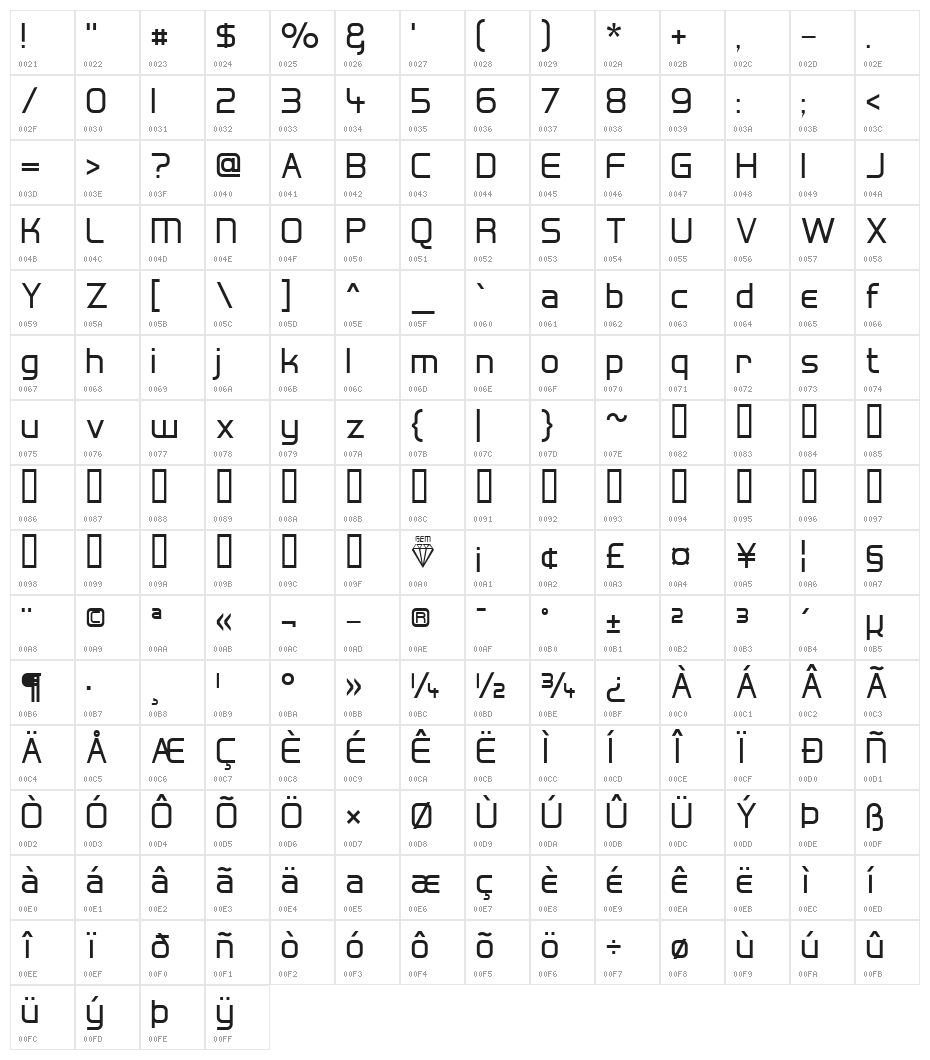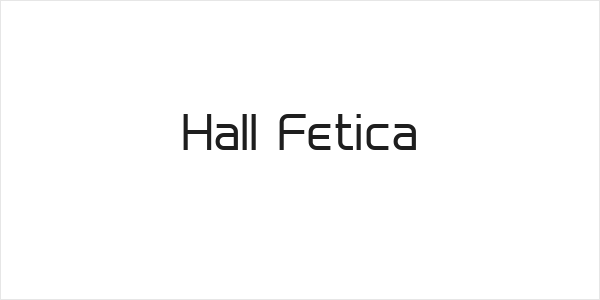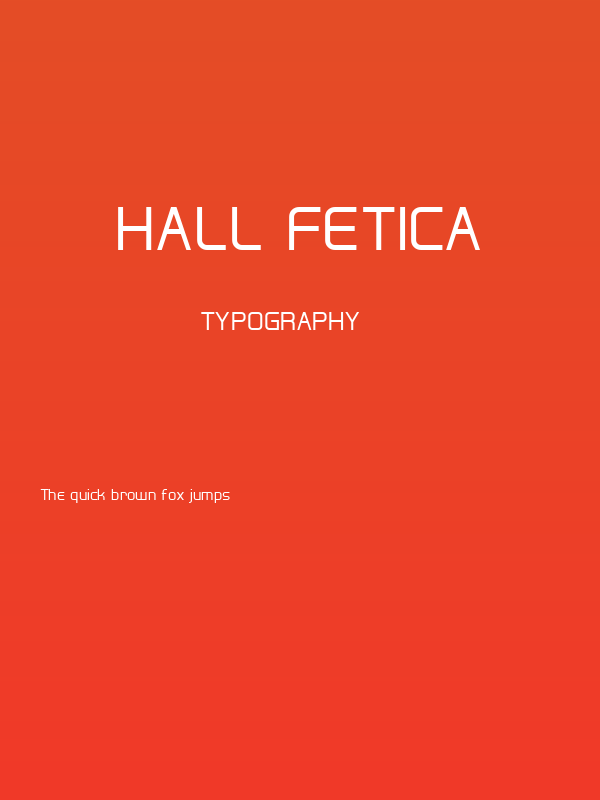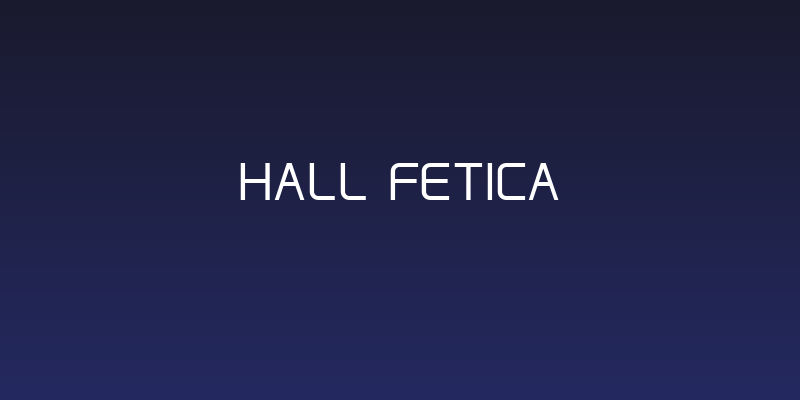
Hall Fetica Font
Hall Fetica Description
This font features a modern, geometric sans-serif style with clean lines and a structured appearance. The characters are uniform in width, giving it a monospaced feel, though it is not strictly monospaced. The uppercase letters are bold and assertive, while the lowercase letters maintain a consistent height, enhancing readability. The numerals are distinct and align well with the overall design, making them suitable for technical or digital contexts. Special characters are crafted with precision, maintaining the font's cohesive look.
| Proposed Projects | Ideal for digital interfaces, technical documentation, branding, and modern advertising. |